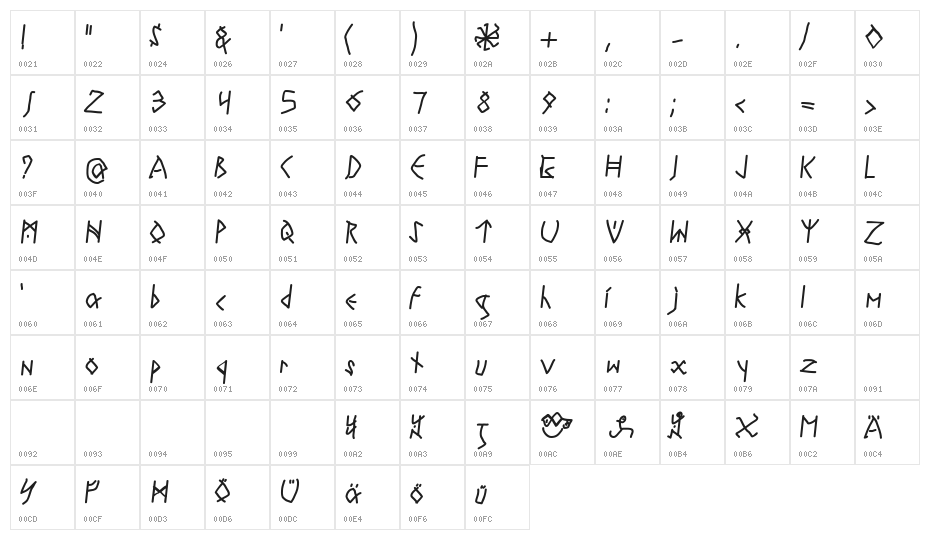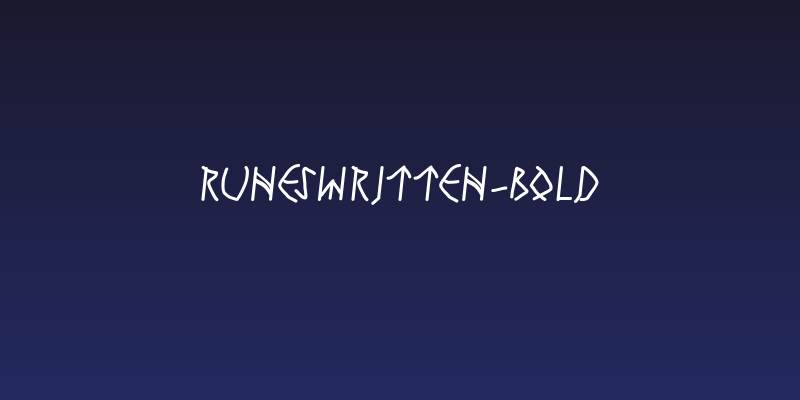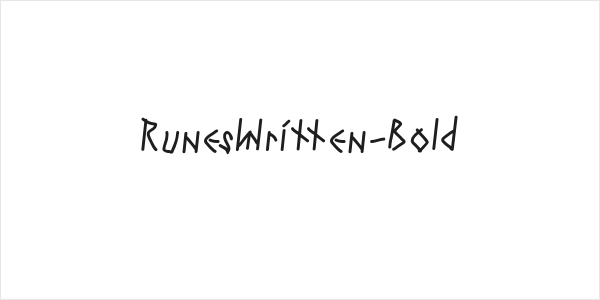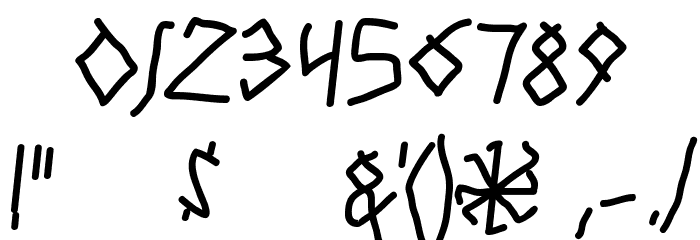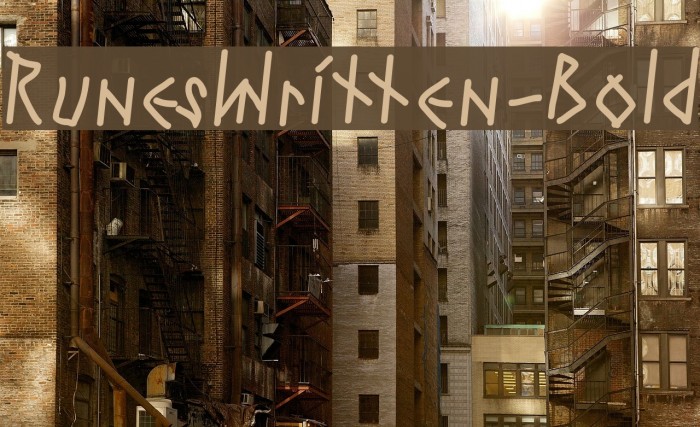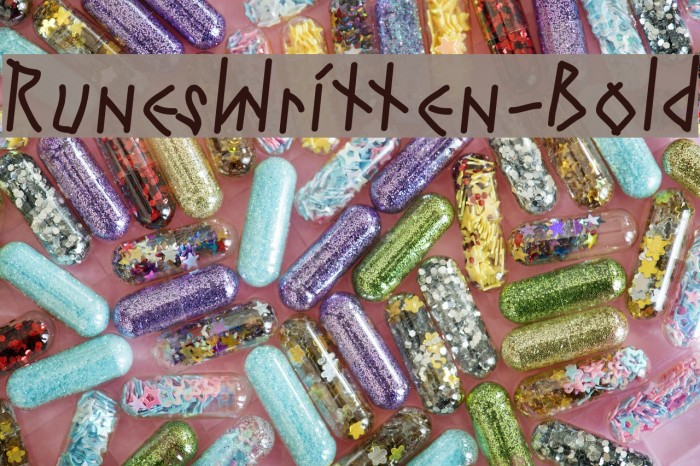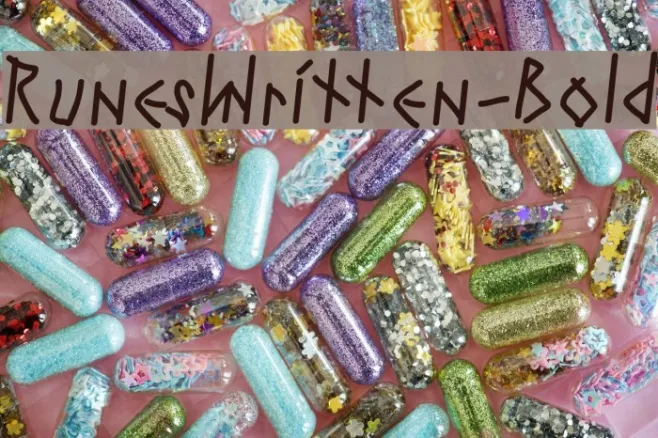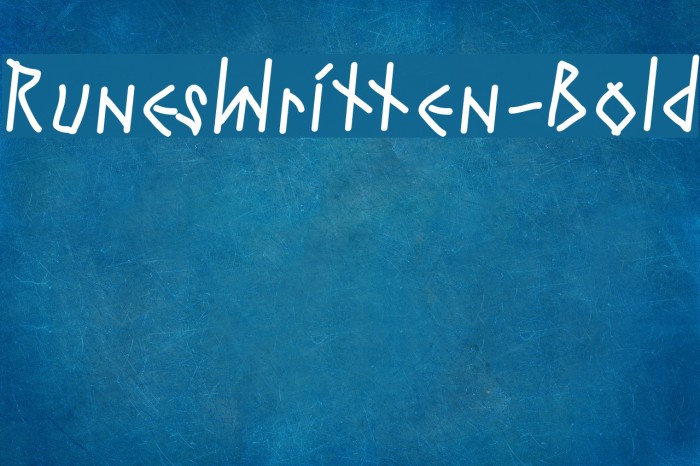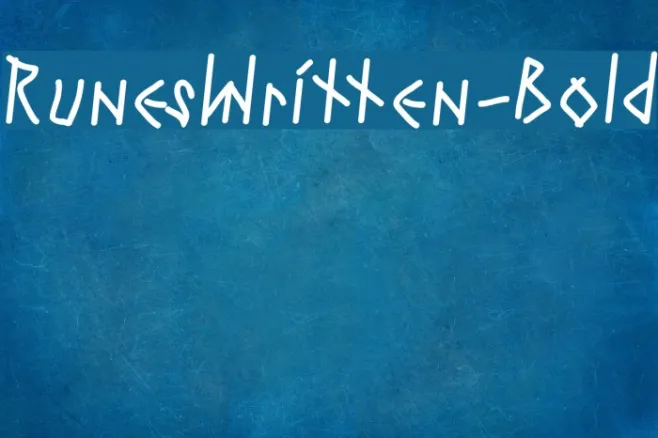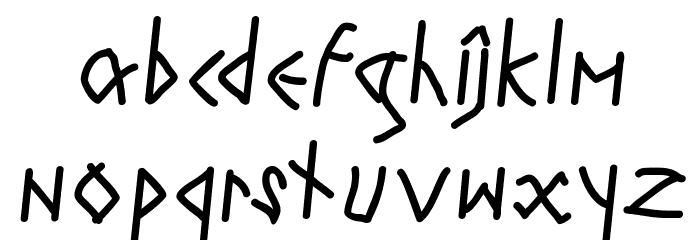
RunesWritten-Bold Font
RunesWritten-Bold Description
This font features a unique, runic-inspired design that evokes a sense of ancient mysticism and historical depth. The characters are crafted with angular lines and sharp edges, reminiscent of traditional runes. Each letter maintains a consistent style, with a slightly irregular and hand-drawn appearance that adds to its authenticity. The uppercase and lowercase letters are distinct yet harmonious, while the numbers and special characters follow the same thematic design. This font is perfect for projects that require a touch of the mysterious or the historical, offering a bold and striking visual impact.